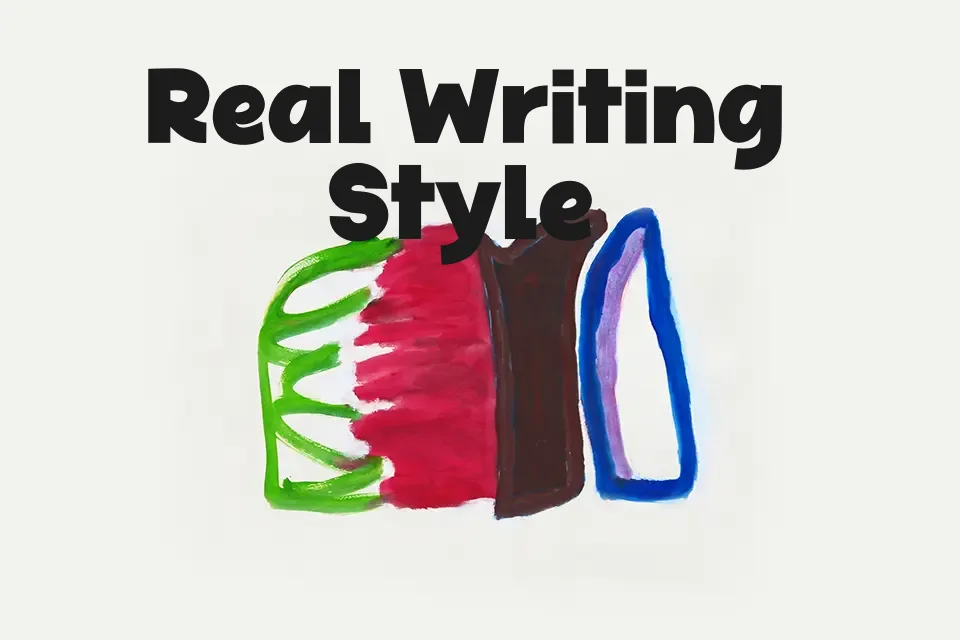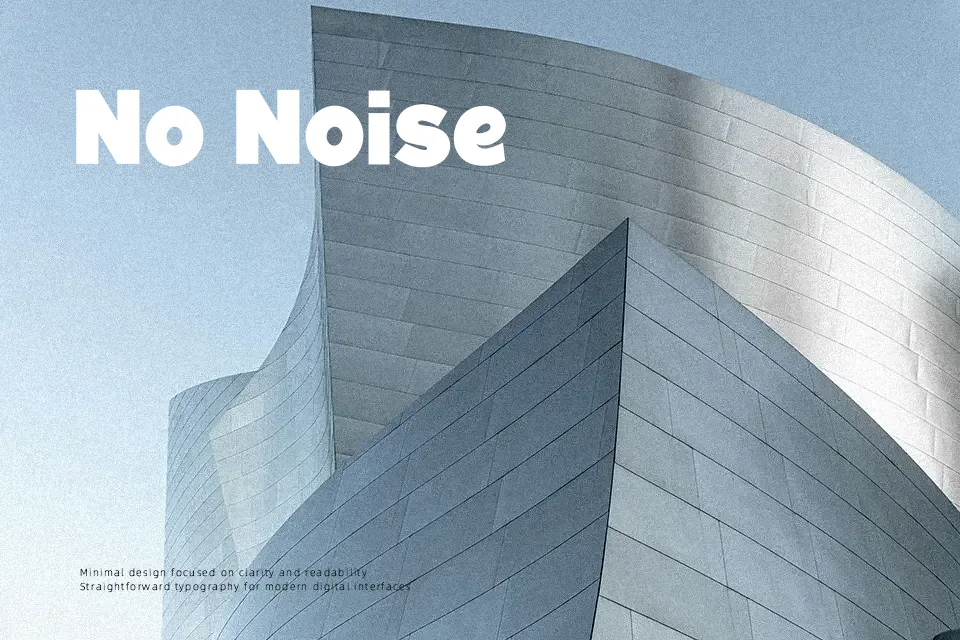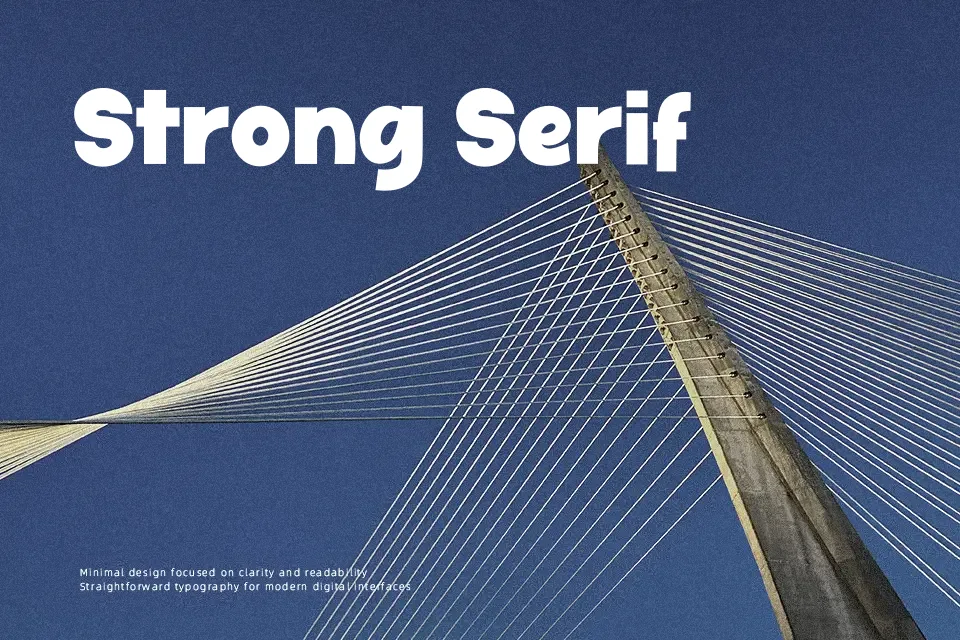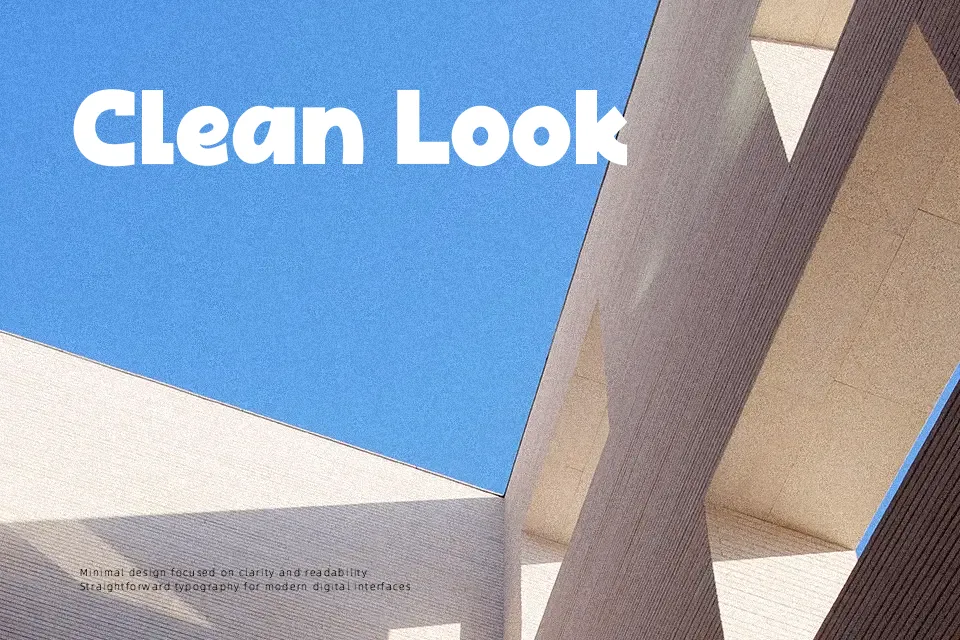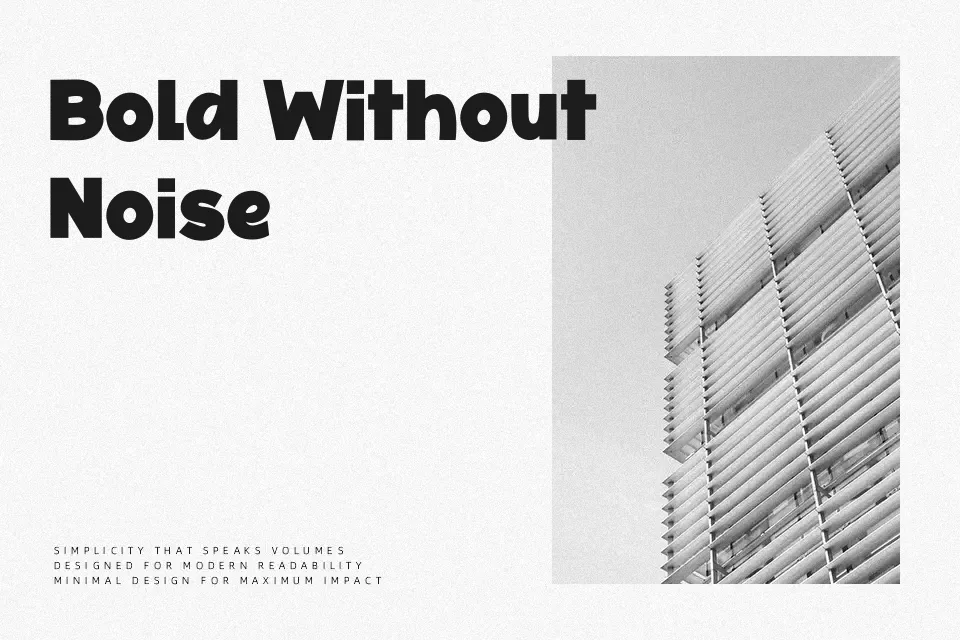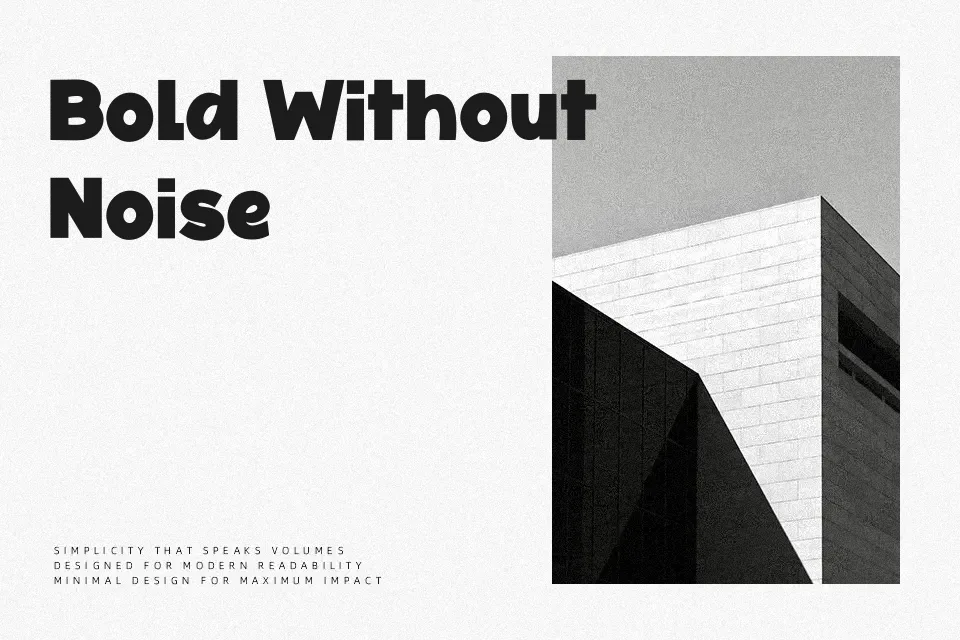
Black Foroth Font
Designed by twinletter
Black Foroth by twinletter is a bold sans-serif typeface that effectively balances a structured, heavy weight with a playful, rounded aesthetic. Its thick strokes and softened edges create an approachable yet impactful visual presence, distinct from traditionally rigid geometric designs. This specific blend of serious and relaxed characteristics offers high versatility for creative projects requiring attention without feeling overly formal. The typeface performs exceptionally well in gaming graphics, dynamic sports branding, energetic movie titles, and vibrant poster designs where strong visibility matters most. Conversely, due to its substantial thickness and casual undertones, Black Foroth loses clarity when applied to dense body text, small interface elements, or traditional corporate documents, where strict legibility and professional neutrality remain essential.
– High-energy gaming and sports branding
– Eye-catching event posters and banners
– Bold logotypes requiring an approachable touch
– Dense paragraphs or long body copy
– Traditional corporate editorial designs
– Minimalist luxury branding
Perfect for branding, gaming, and logo, with a bold and display style.